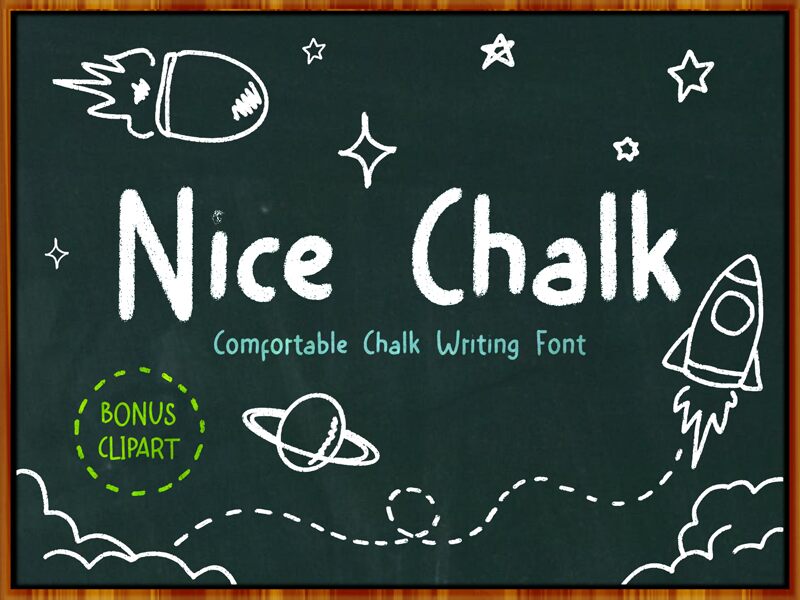
Nice Chalk is a handwritten font designed by Nuryanto Dwi. Its condensed width gives it a unique and personal feel that makes it perfect for projects such as scrapbooks, posters, and invitations. The stylish, yet casual look of Nice Chalk will add a fun touch to any project you have in mind! From book covers to letterhead designs, this font will bring a bit of personality to anything you create.